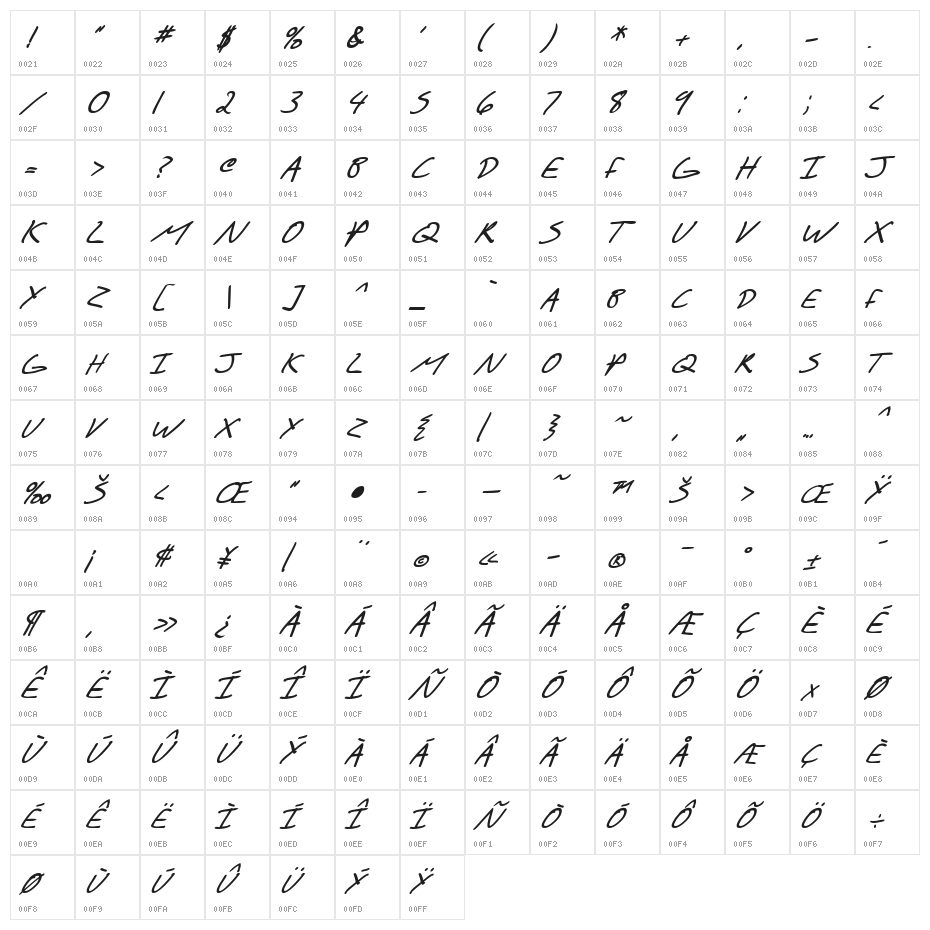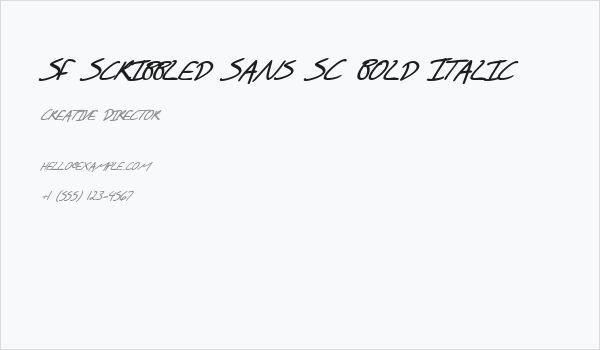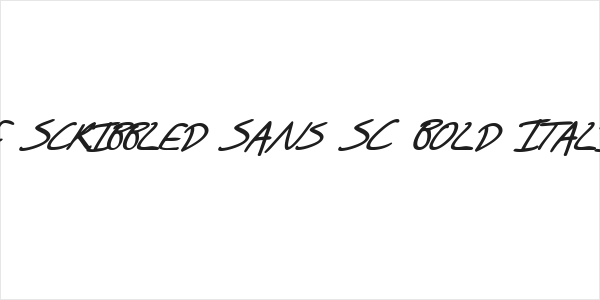
SF Scribbled Sans SC Bold Italic Font
SF Scribbled Sans SC Bold Italic Description
This font features a dynamic and energetic handwritten style, characterized by its bold and italicized strokes. The letters are crafted with a casual flair, giving off a sense of spontaneity and creativity. Each character flows seamlessly into the next, creating a cohesive and fluid appearance. The uppercase and lowercase letters maintain a consistent style, while the numerals and special characters complement the overall aesthetic. This font's lively and informal nature makes it ideal for projects that require a personal touch or a sense of movement.
Proposed ProjectsIdeal for creative projects such as greeting cards, invitations, posters, and branding materials that require a personal and energetic touch.